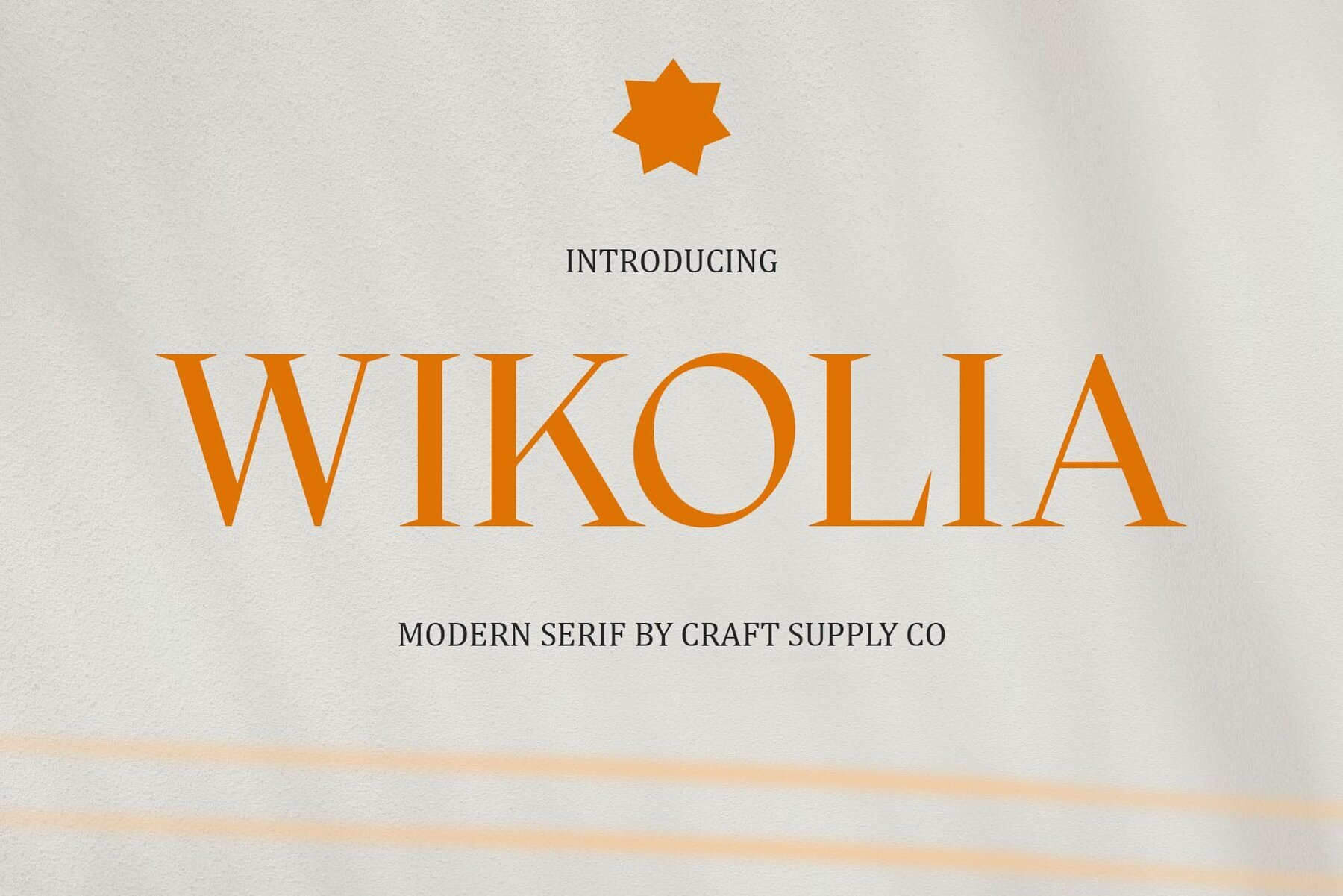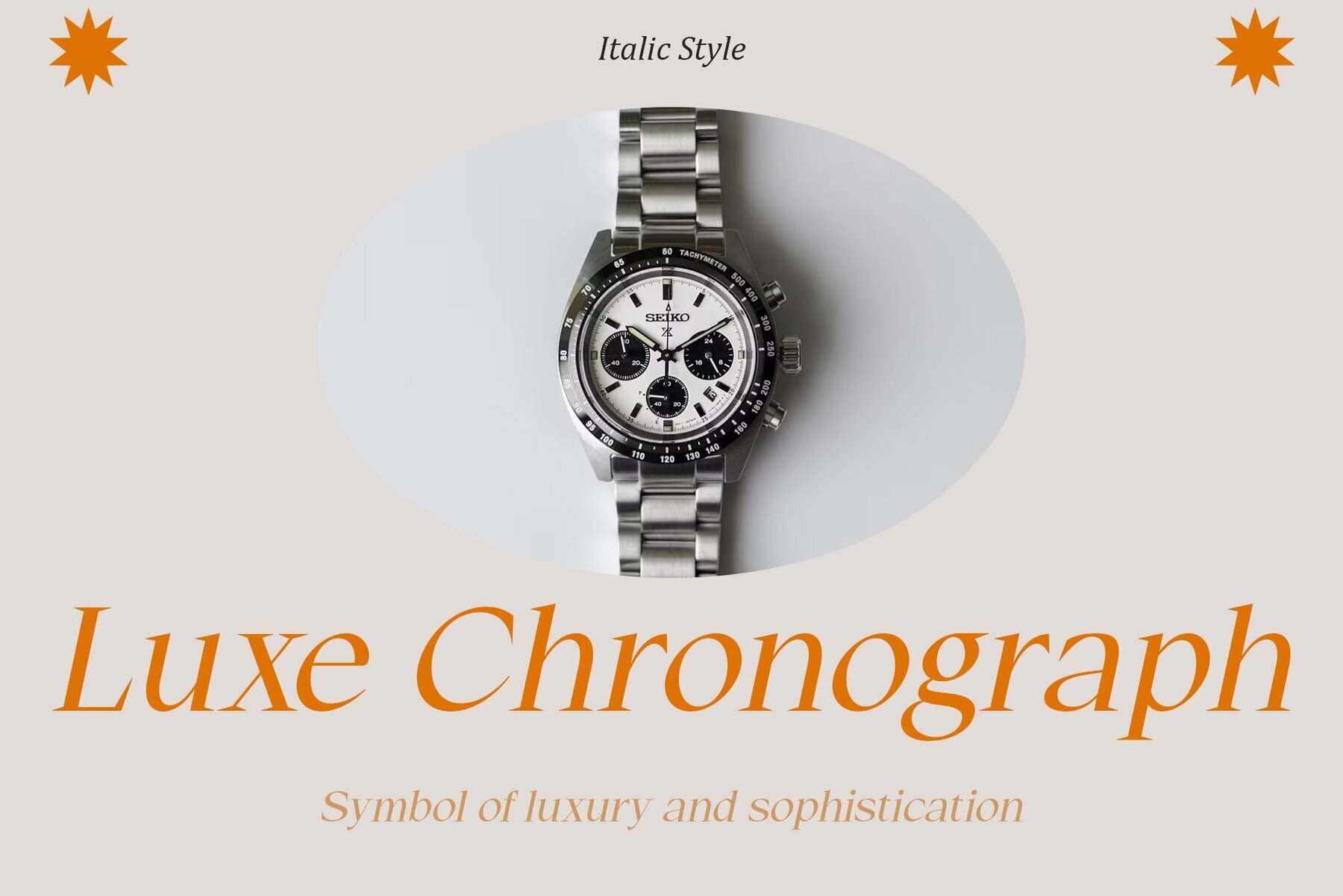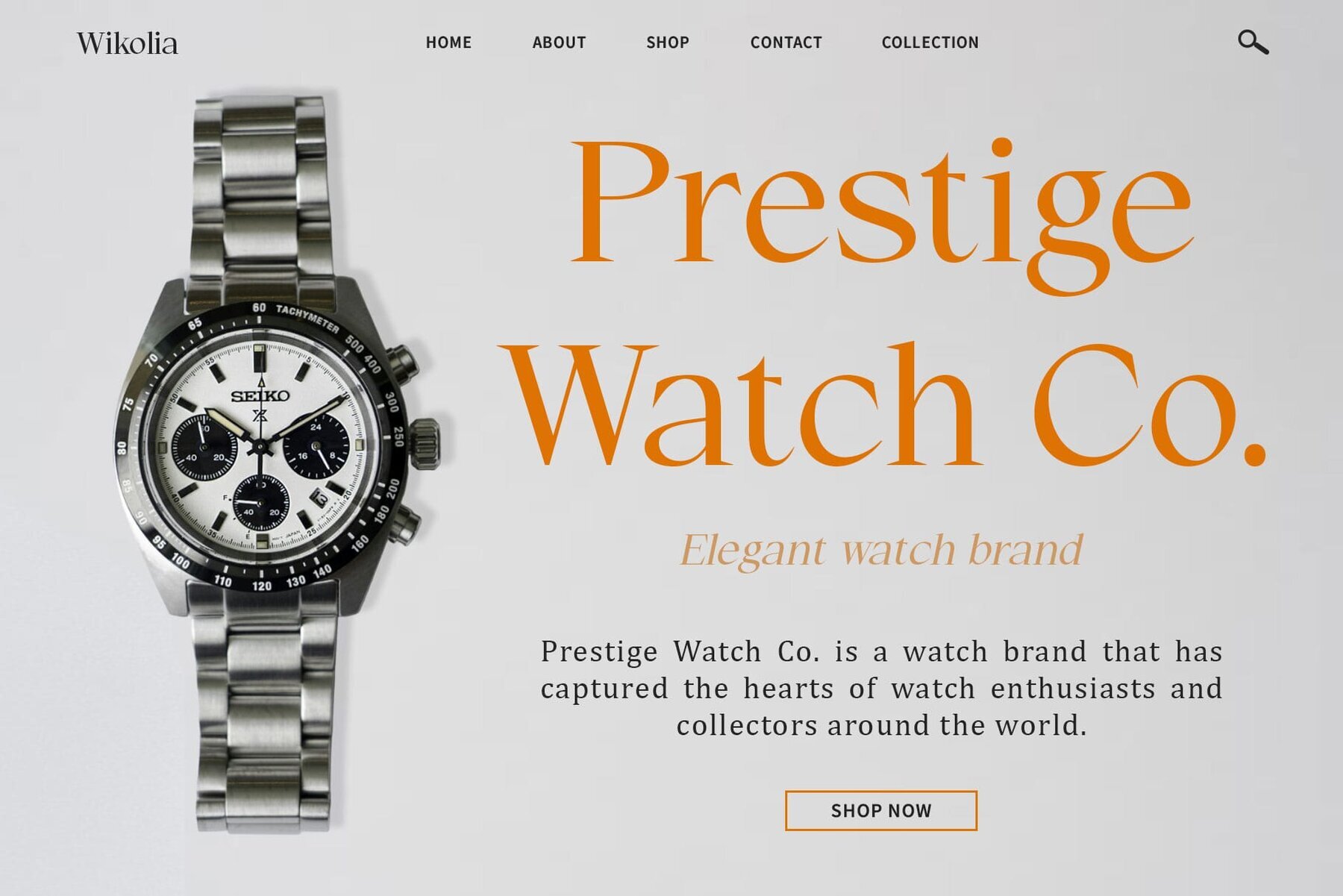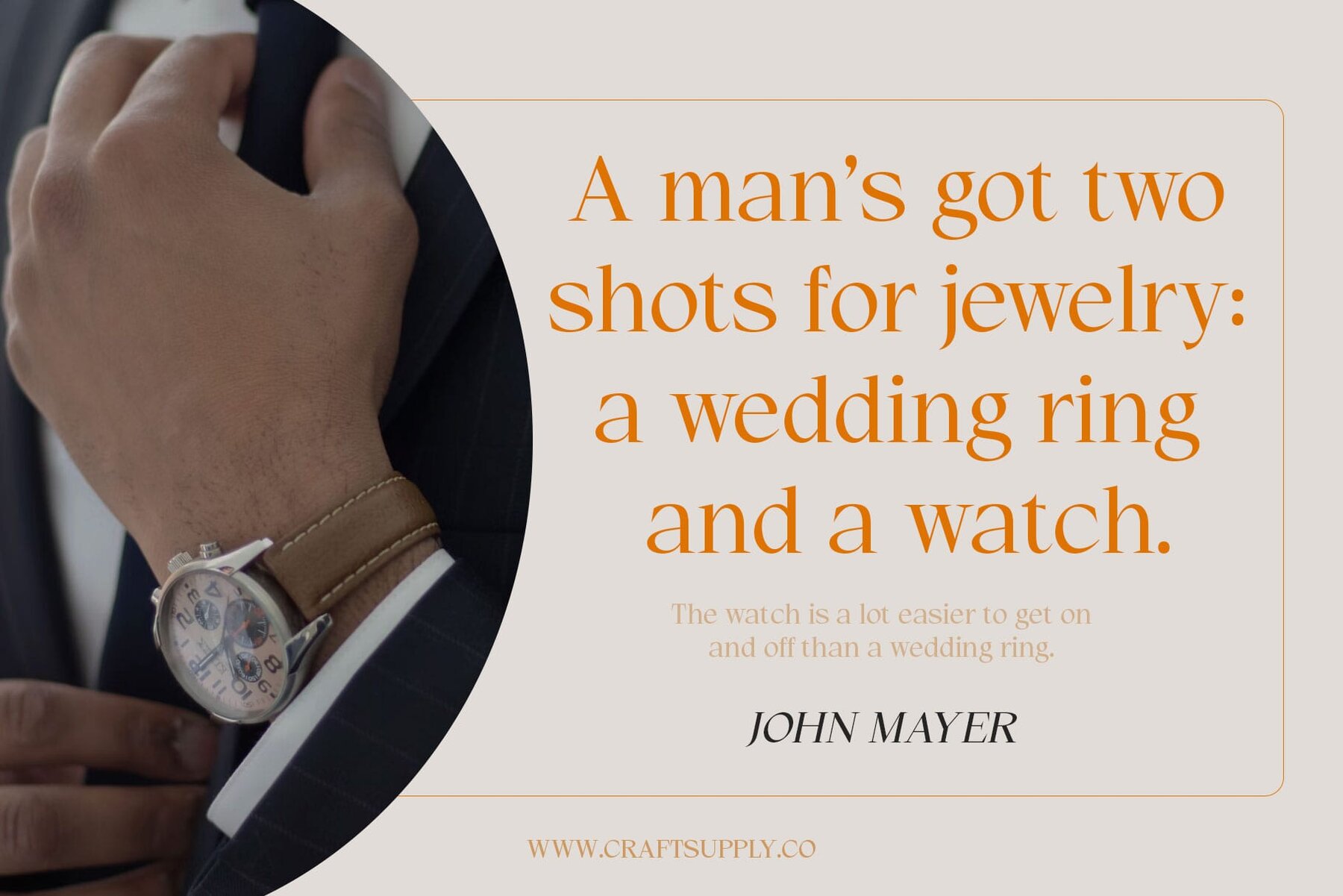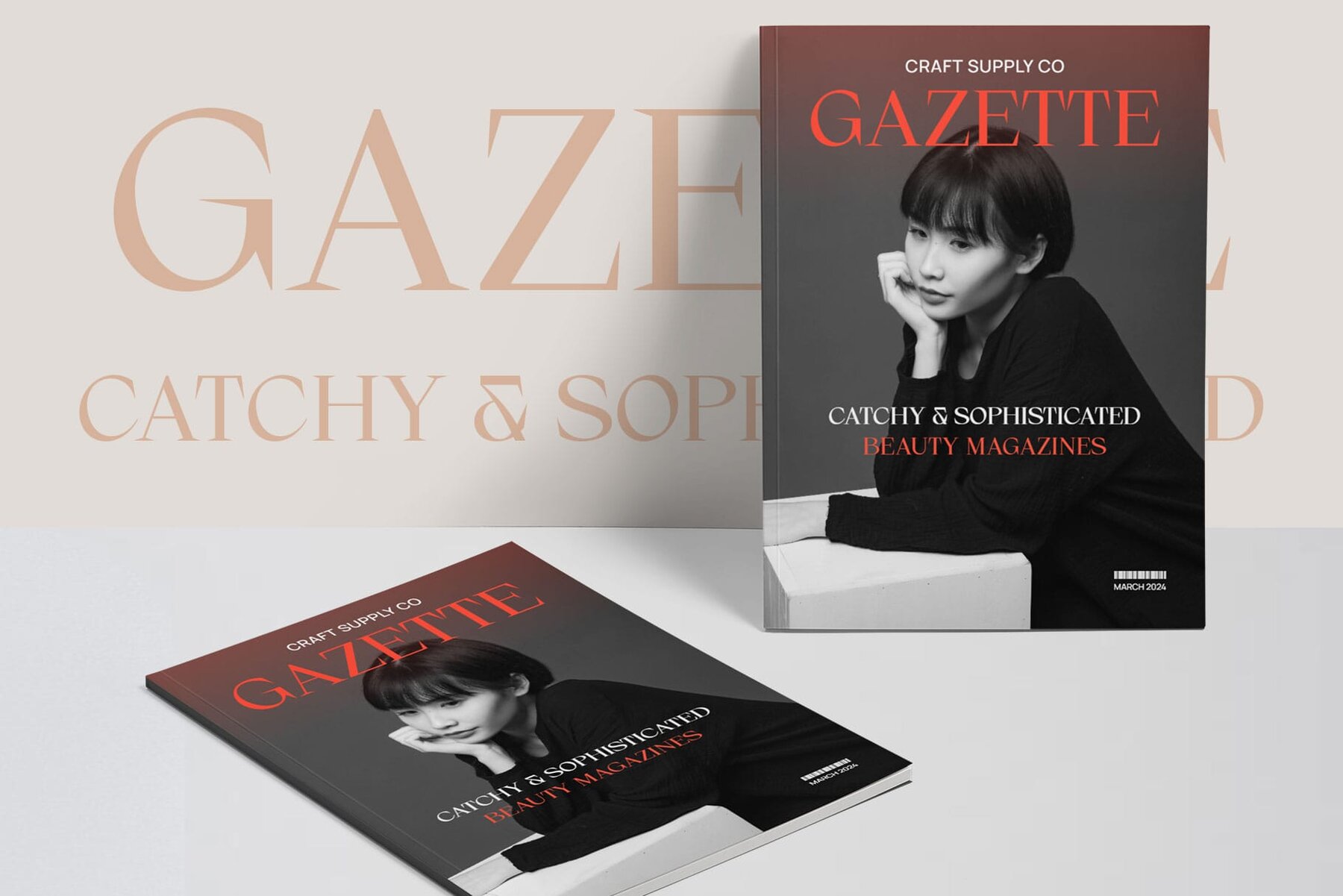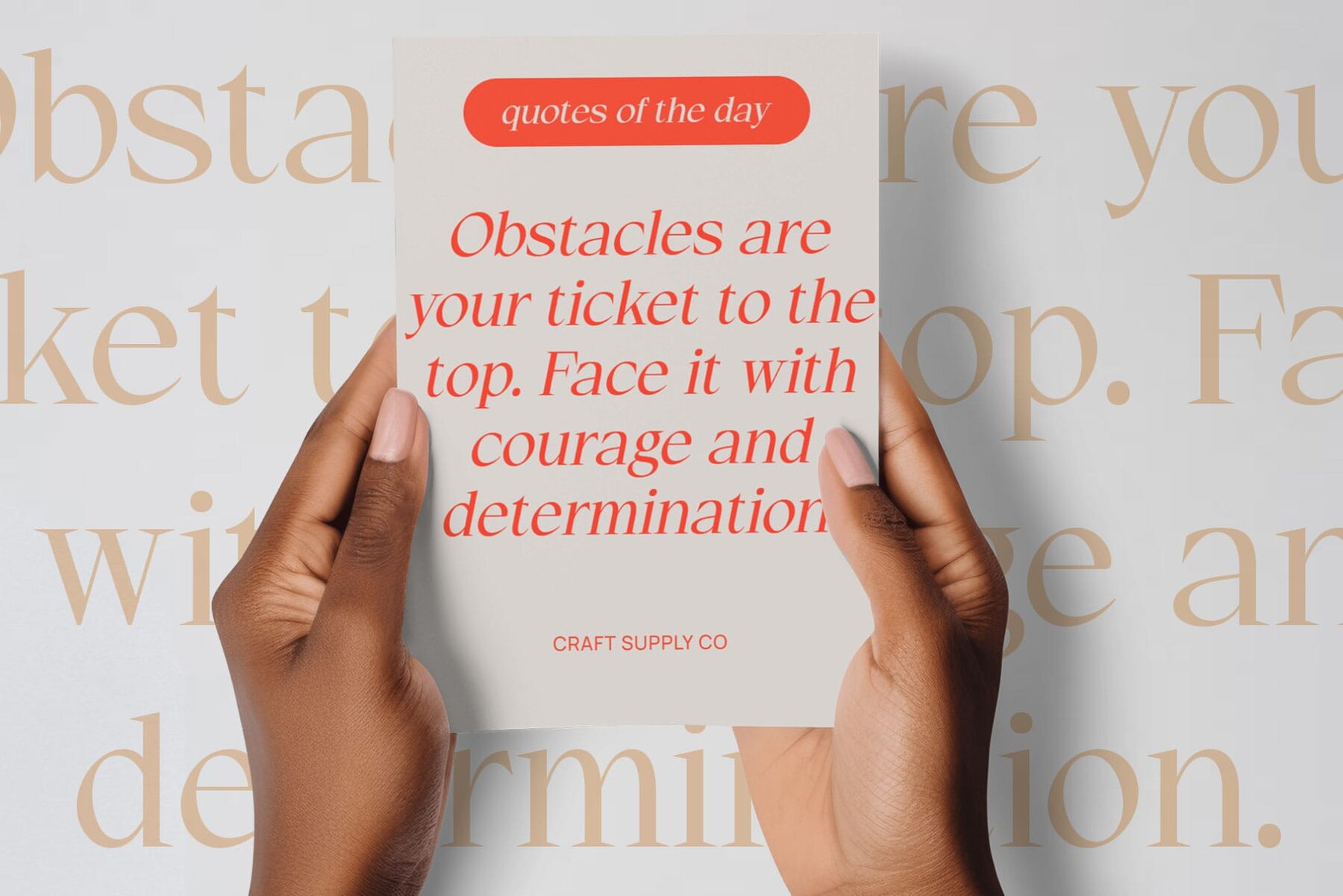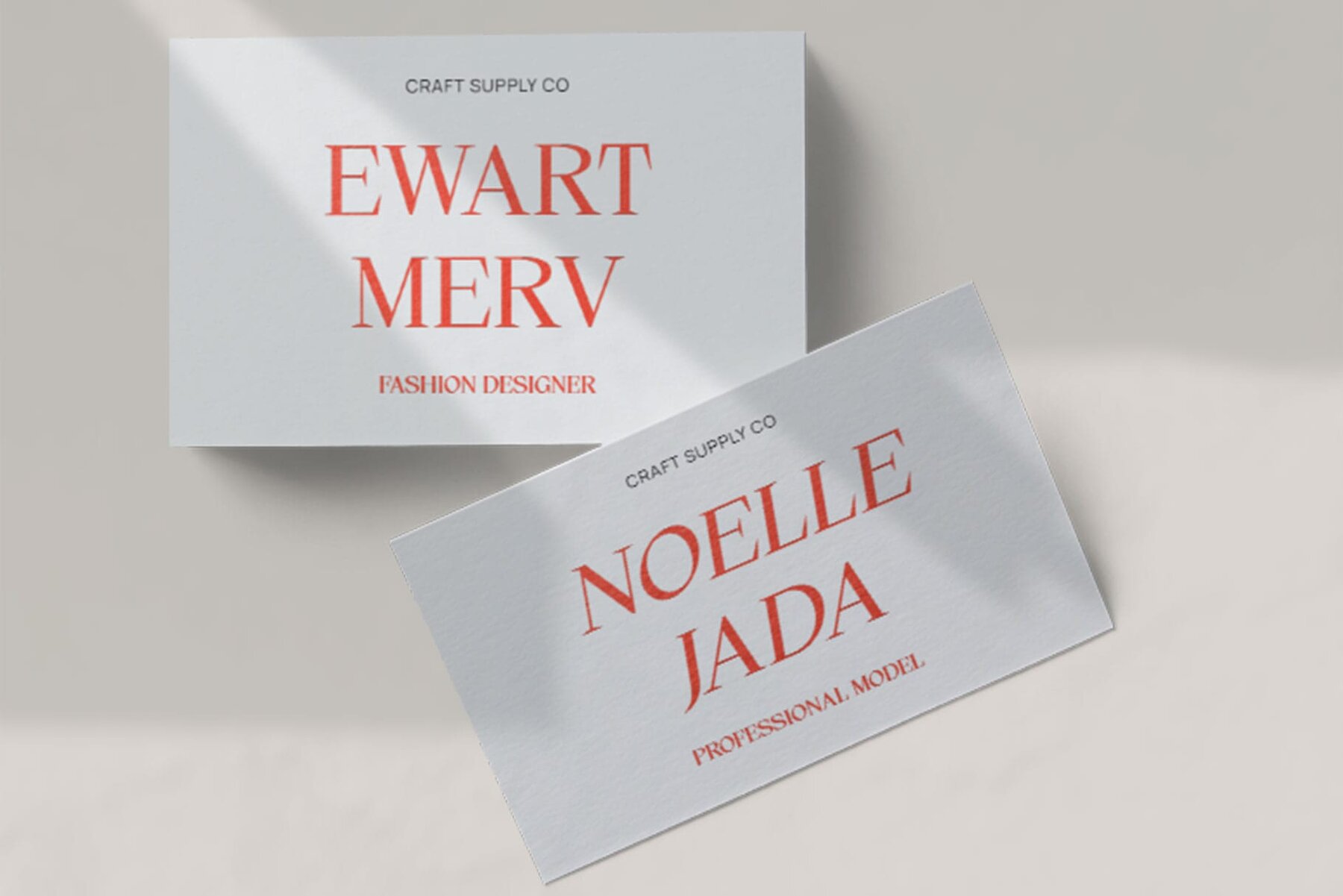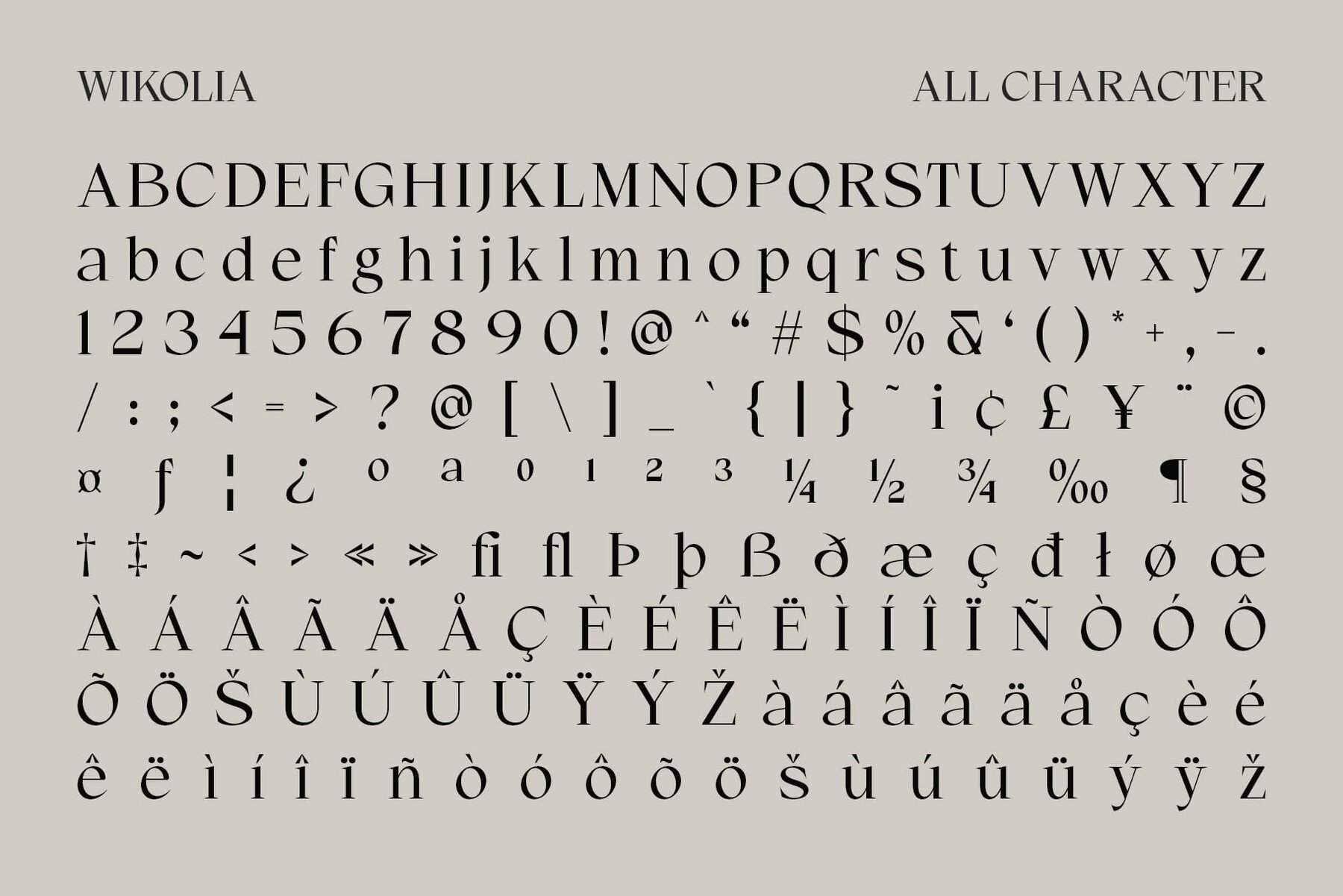
Wikolia Font
Wikolia is a modern serif font that combines high contrast with refined details, enhancing both readability and visual appeal. Its bold strokes make it a standout choice for any layout, whether it’s headlines, body text, or logos. With its clean lines and sophisticated appearance, Wikolia exudes a timeless elegance that ensures its relevance in various design contexts.
This versatile font effortlessly caters to a range of needs, from creative projects to corporate branding. Its professional design strikes a perfect balance between modernity and traditional sophistication, making it ideal for marketing materials and corporate communications. Wikolia's support for uppercase and lowercase characters, numerals, punctuation, and multilingual accents makes it a comprehensive solution for diverse design requirements.